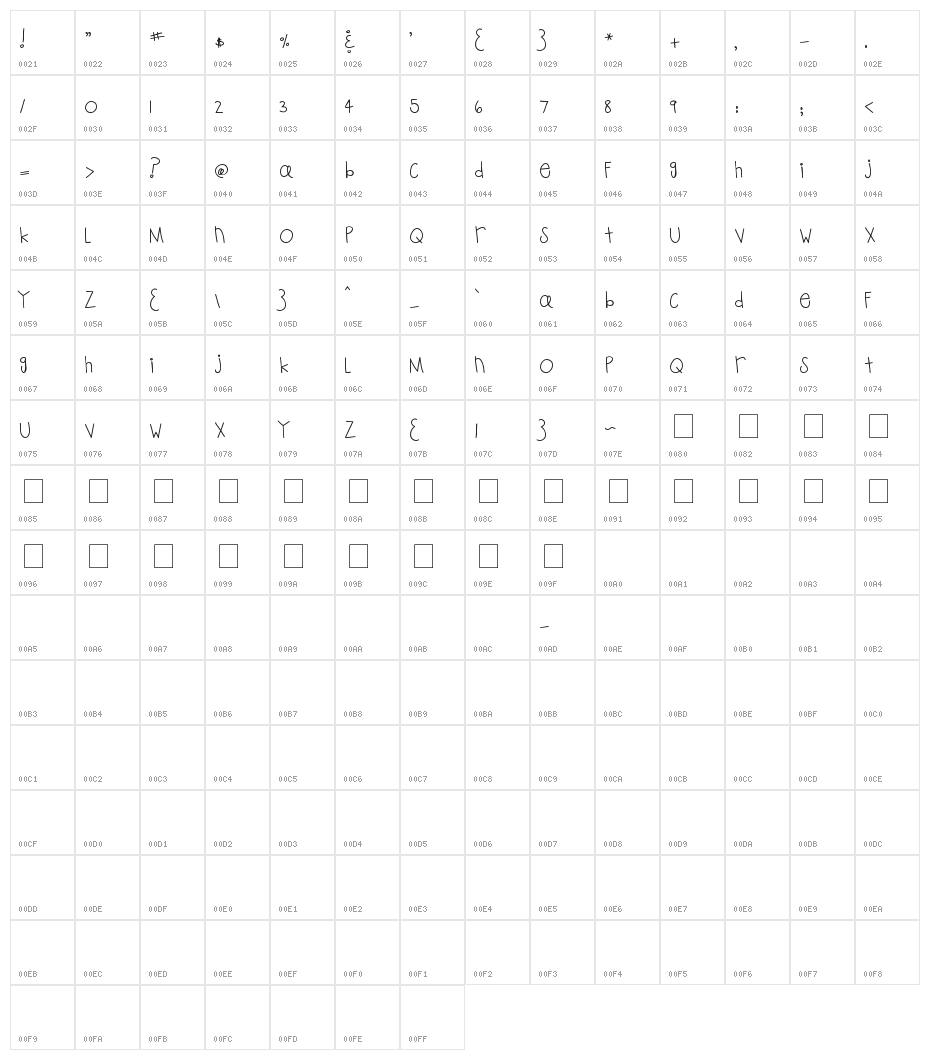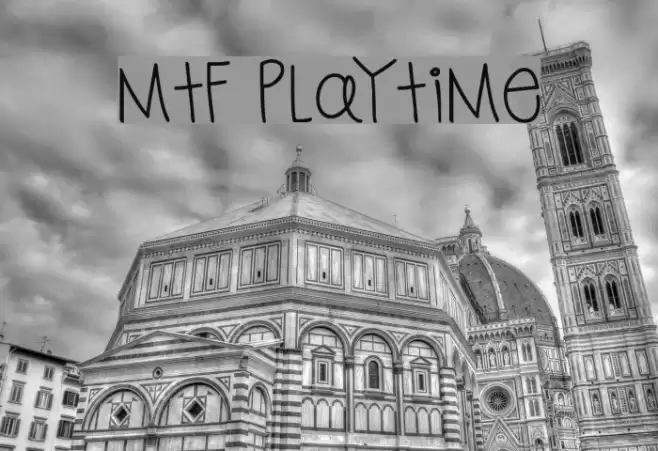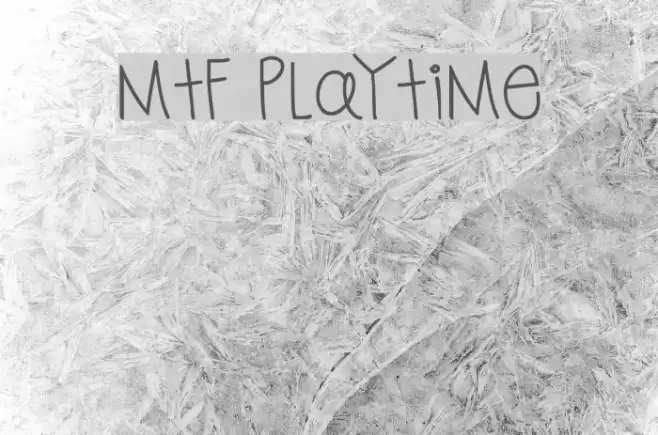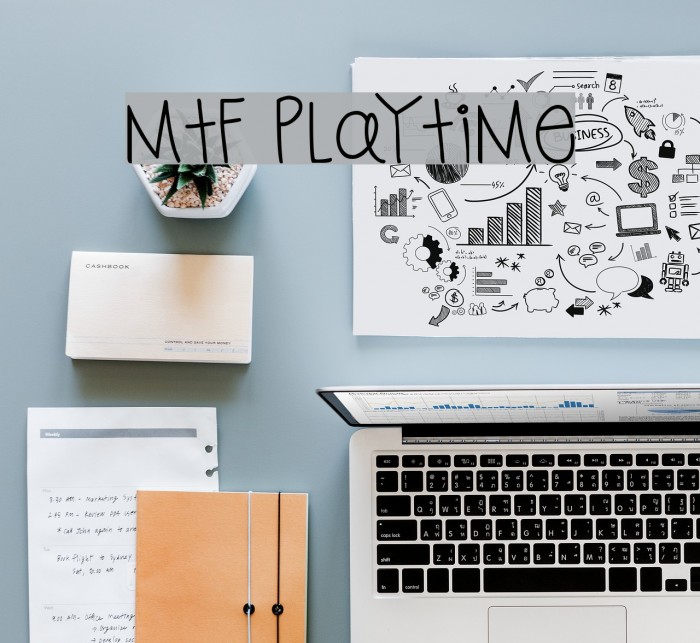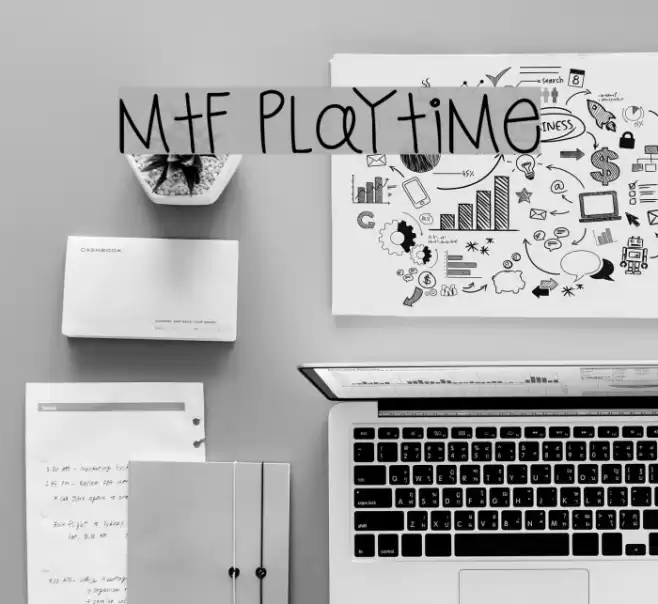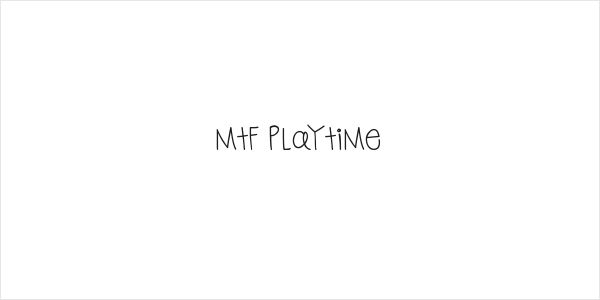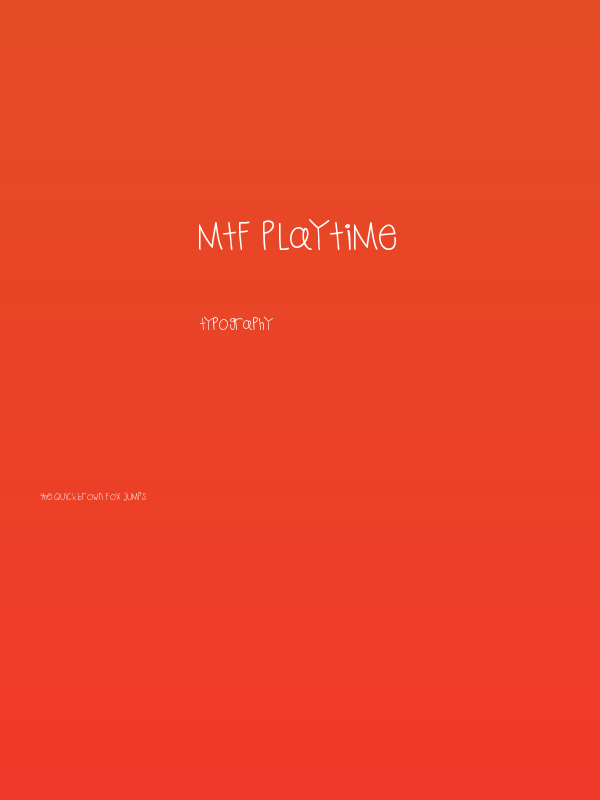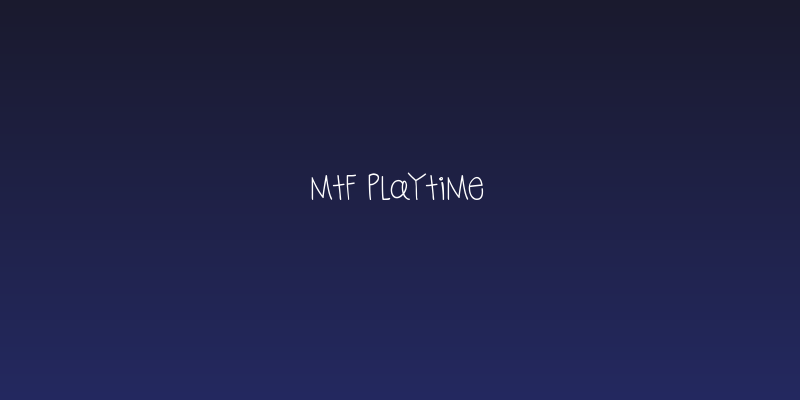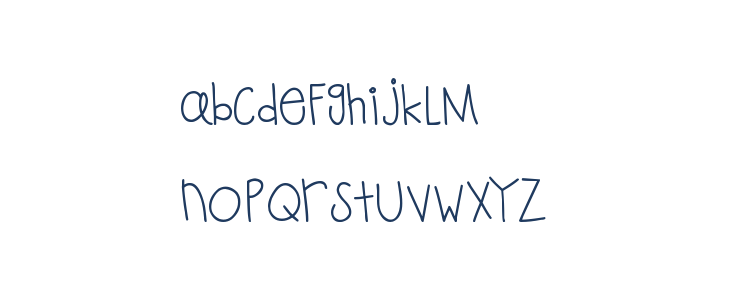
MTF Playtime Font
MTF Playtime Description
This playful and whimsical font features a handwritten style with a casual and friendly appearance. The characters are slightly irregular, giving it a charming and informal look. The uppercase and lowercase letters maintain a consistent style, with rounded edges and a slight tilt that adds to its playful nature. The numerals and special characters follow the same design, ensuring a cohesive appearance across all text. This font is perfect for projects that require a fun and approachable feel, such as children's books, playful branding, or casual invitations.
| Proposed Projects | Ideal for children's books, playful branding, casual invitations, and fun posters. |